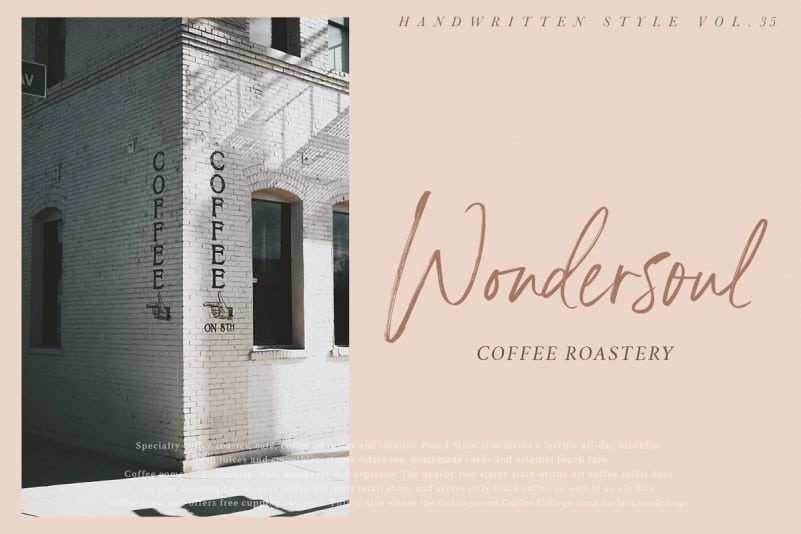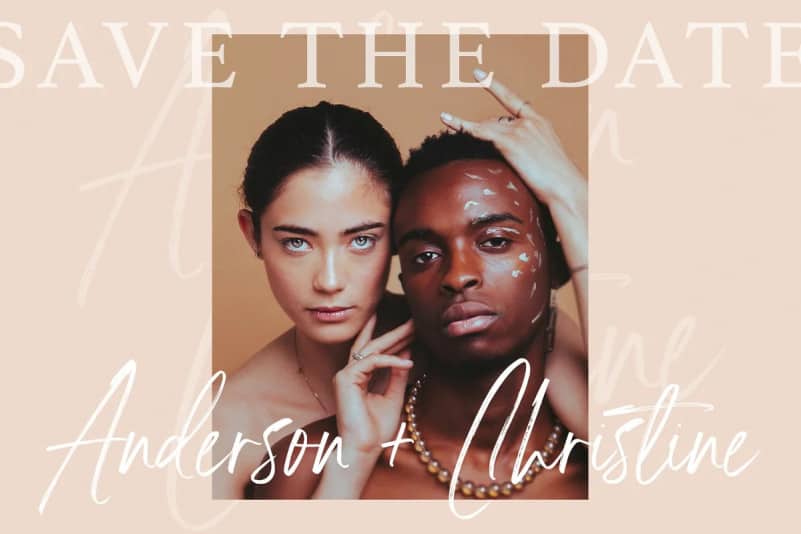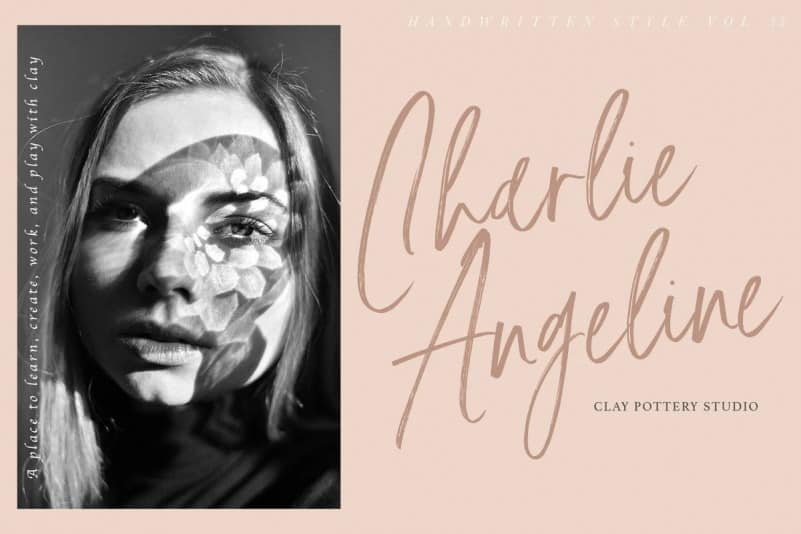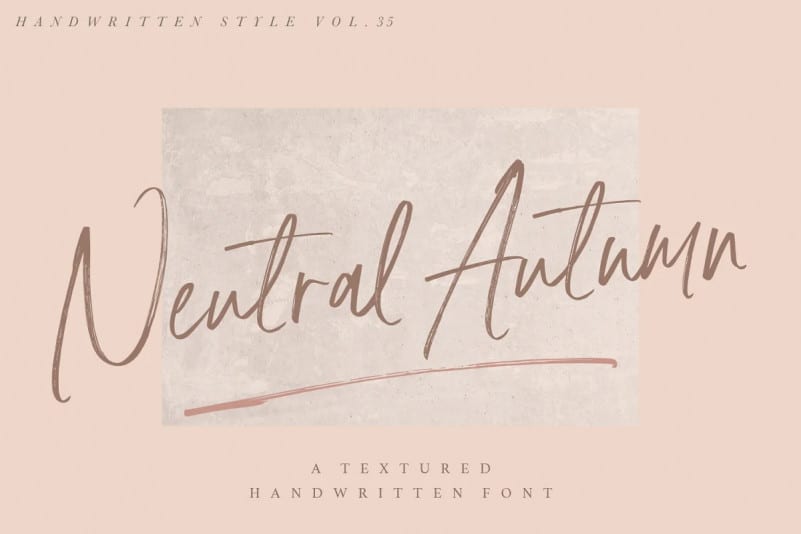
Neutral Autumn Brush Font
Neutral Autumn Brush Font features a messy, casual look with medium thickness for legibility and a slightly marker-like look. This Font has a total of 2 lowercase alternatives and several ligatures to add a natural handwriting feel.
If you like to create various projects such as stationery invitations, social media, logos, weddings, branding and so on, Neutral Autumn is the right choice. It can also be combined with a variety of serif fonts to enhance any project you want to work on.